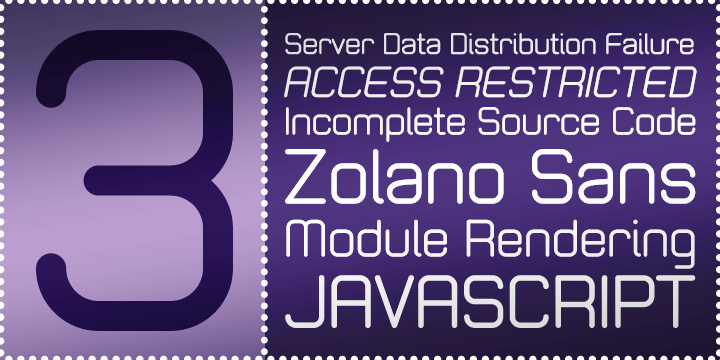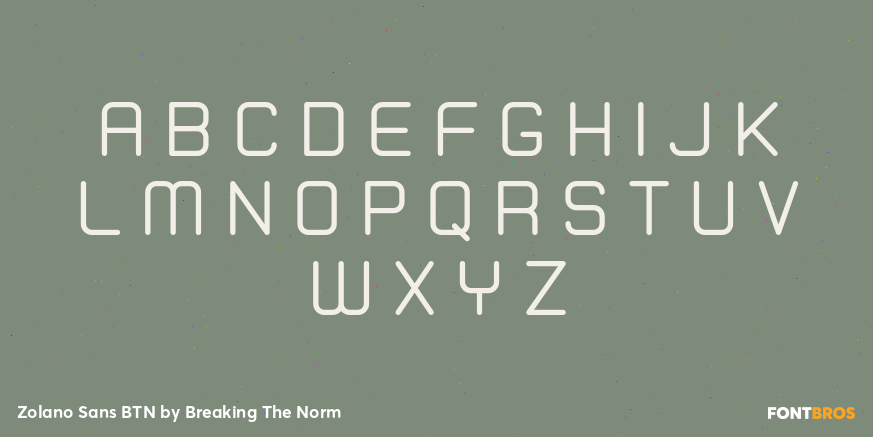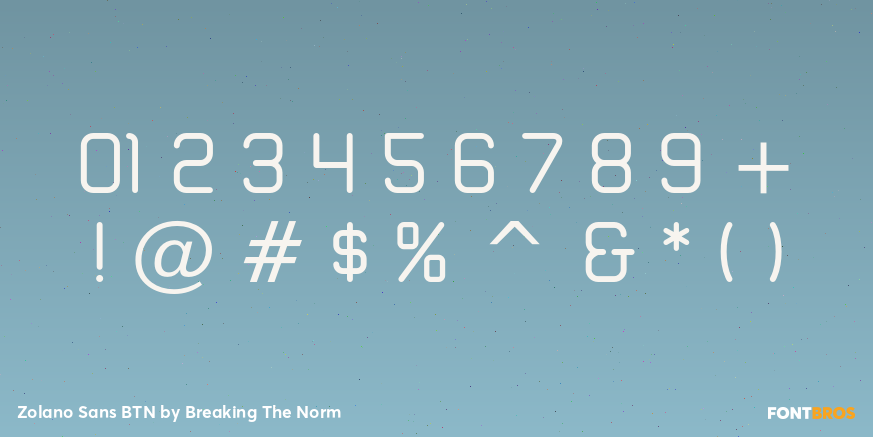
Zolano Sans BTN
Zolano Sans BTN is a futuristic sans serif family with a clean, straightforward approach to legibility. Inspired by smooth monoline geometric forms, it balances a modern technical feel with enough personality to remain visually engaging. Its crisp structure makes it well suited for technology branding, gaming graphics, packaging, signage, editorial headlines, interfaces, and other contemporary design work that calls for a sleek, high-tech voice. With Regular, Bold, Oblique, and Bold Oblique styles, Zolano Sans BTN offers flexible display options for designs that want clarity, structure, and a subtle futuristic edge.